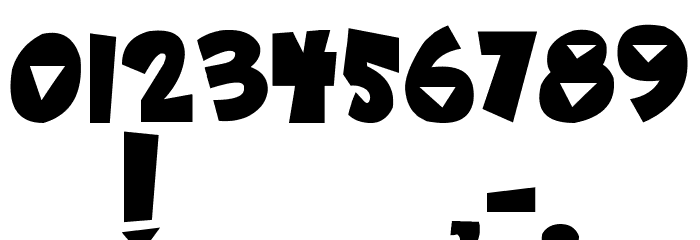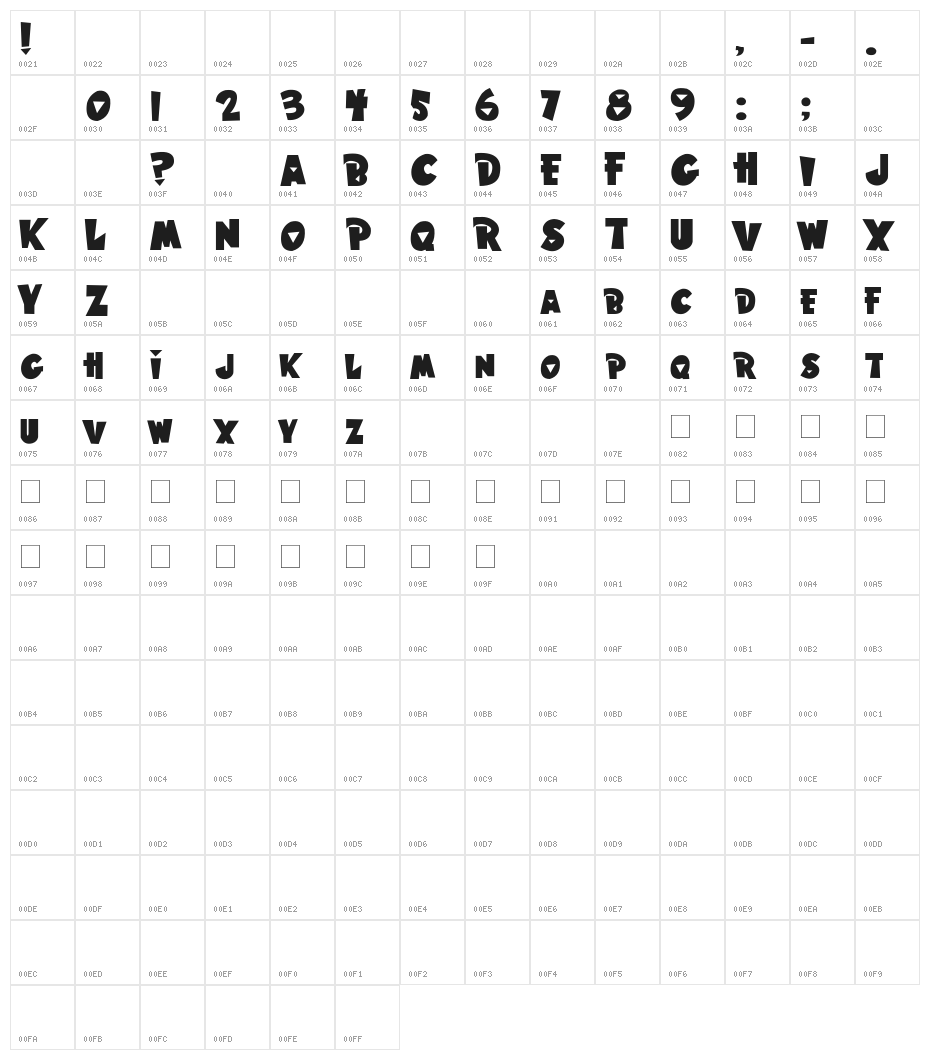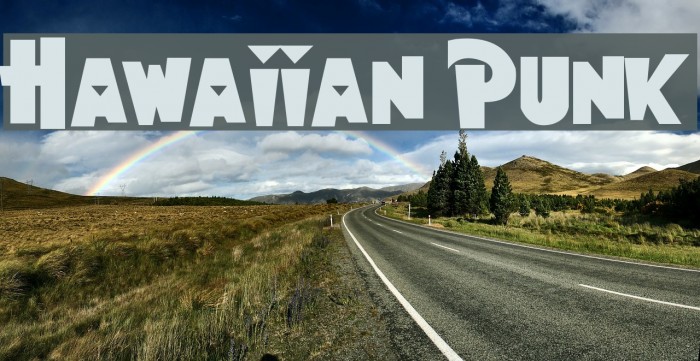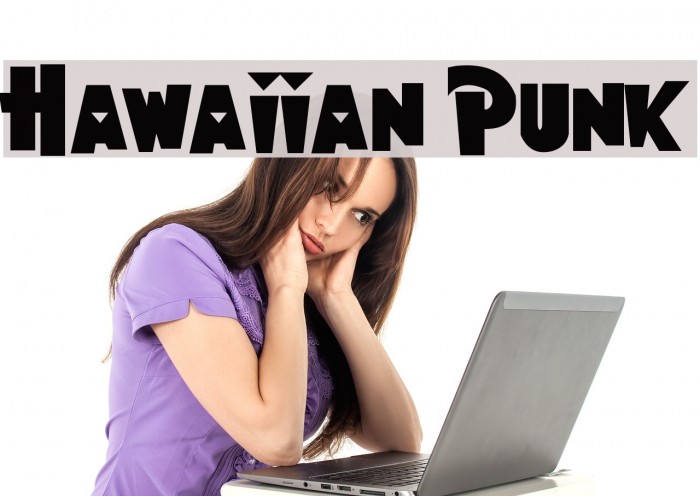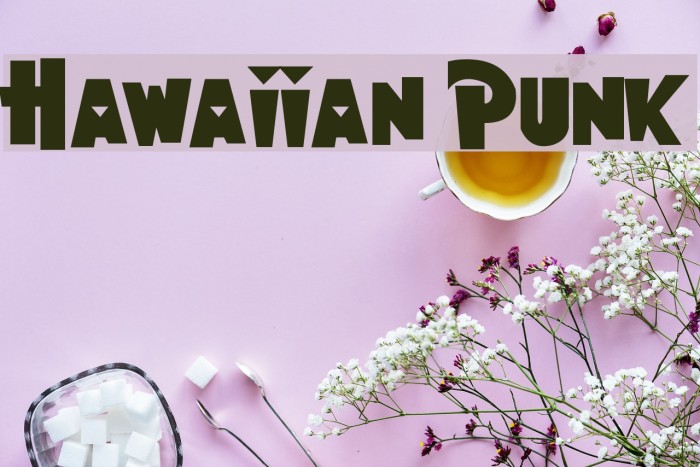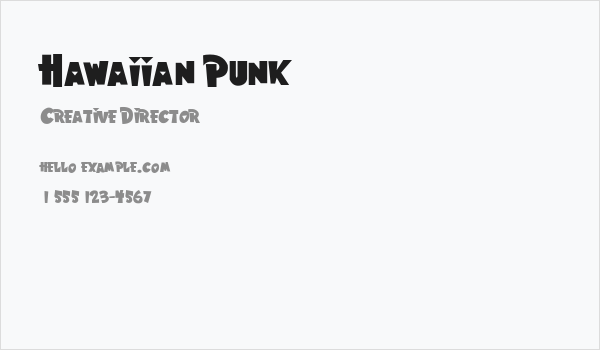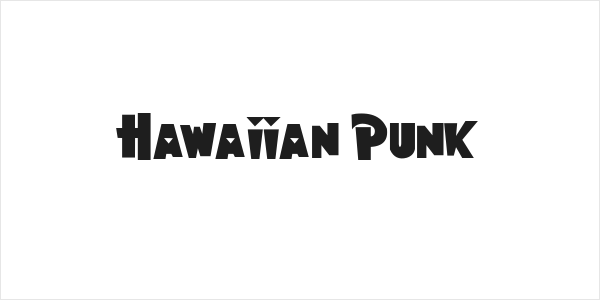
Hawaiian Punk Font
Hawaiian Punk Description
This font features bold, angular characters with a playful and rebellious vibe. The letters are heavily stylized with sharp edges and exaggerated forms, giving them a dynamic and energetic appearance. The uppercase and lowercase letters maintain a consistent style, with the lowercase mirroring the uppercase in form and weight. Numbers and special characters follow the same bold and distinctive design, ensuring a cohesive look across all text elements. The font's unique style makes it stand out, perfect for projects that require a strong visual impact.
| Proposed Projects | Ideal for music album covers, posters, branding for edgy or alternative brands, and any project needing a strong, impactful typeface. |